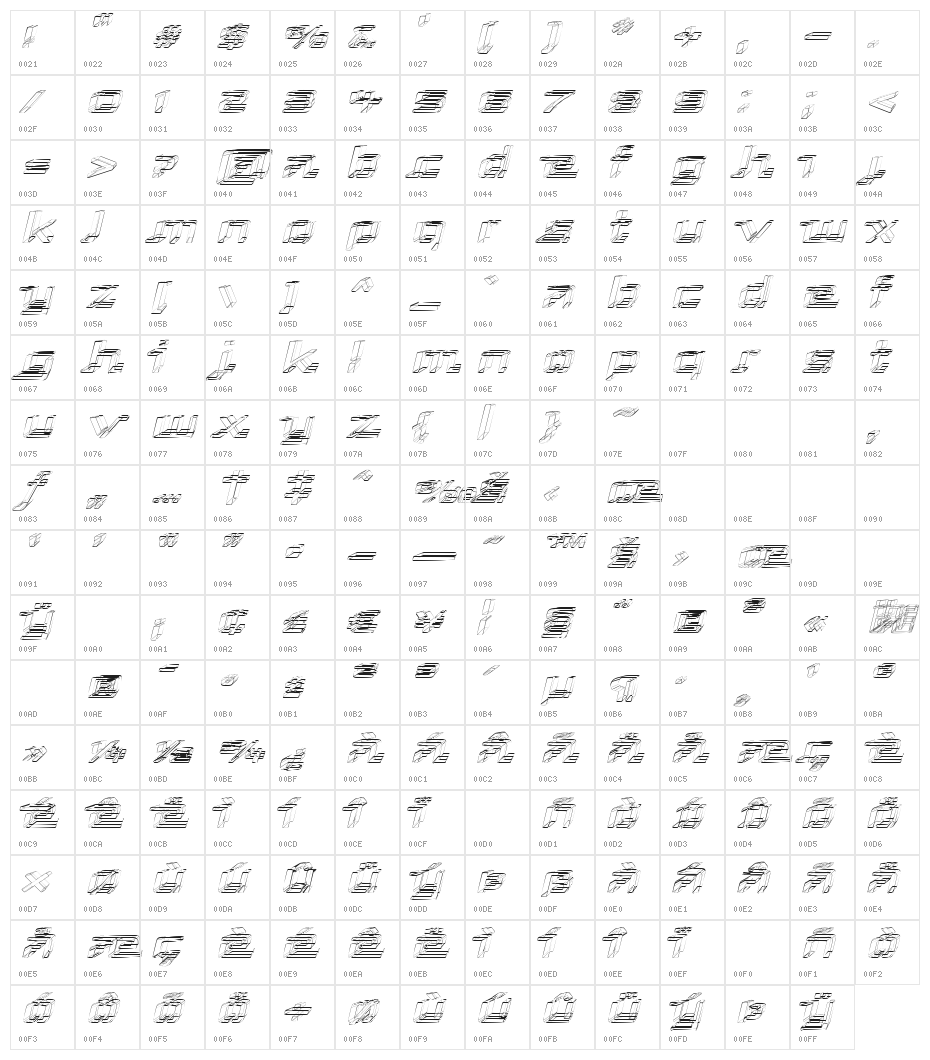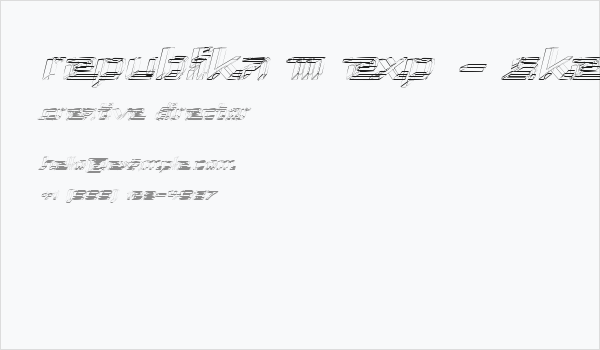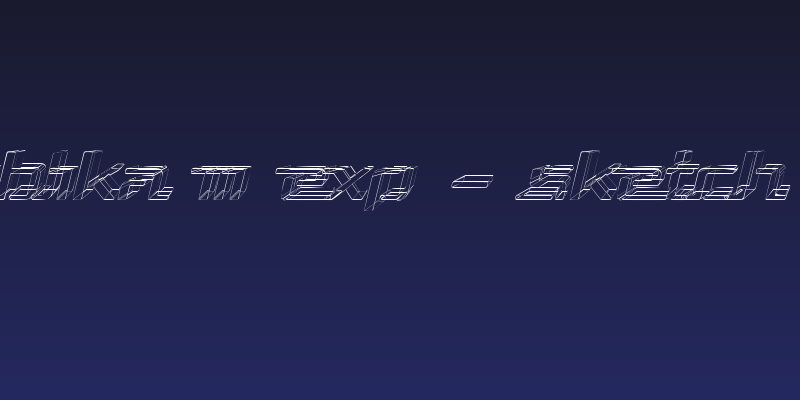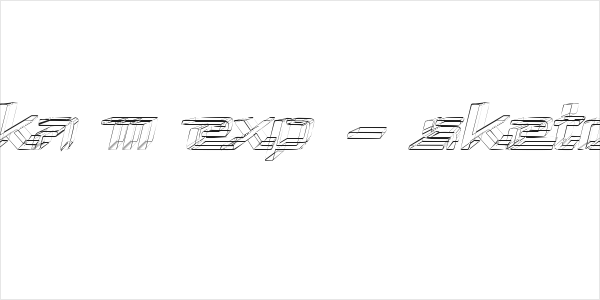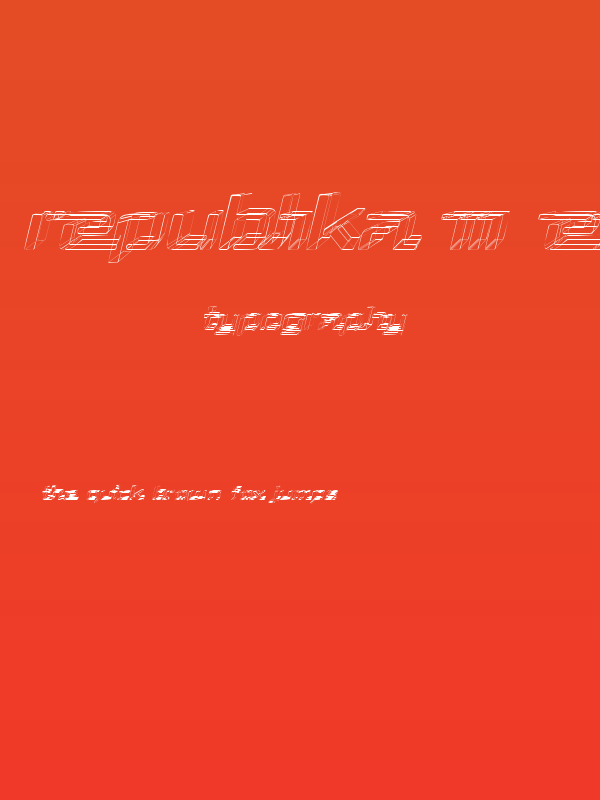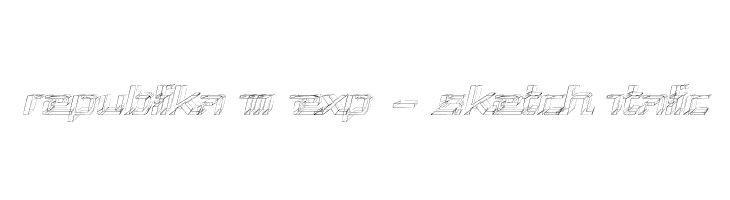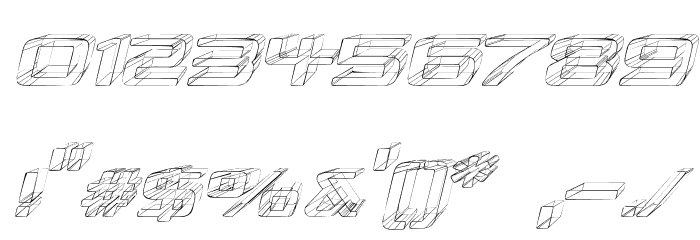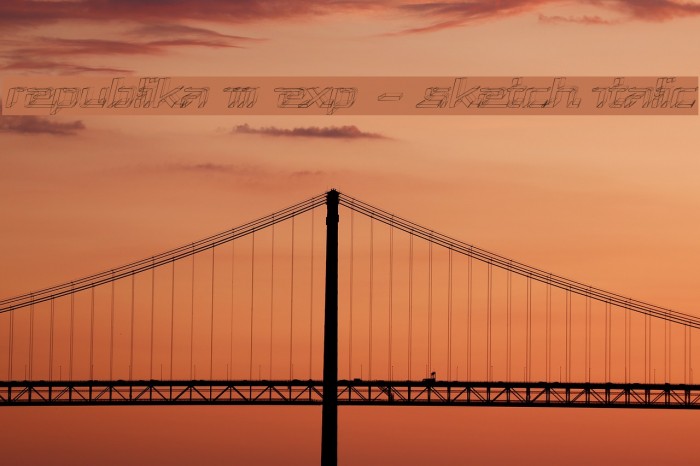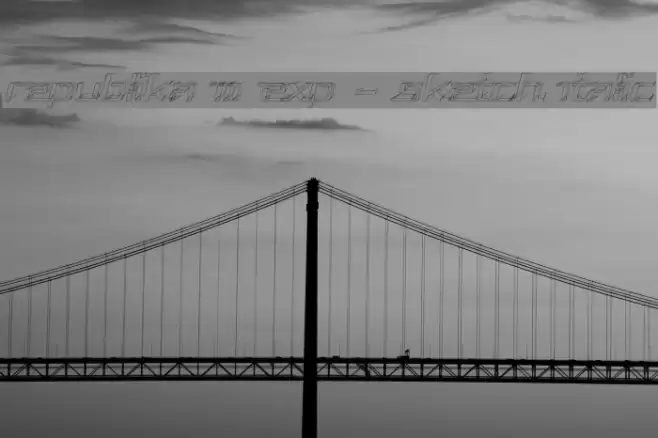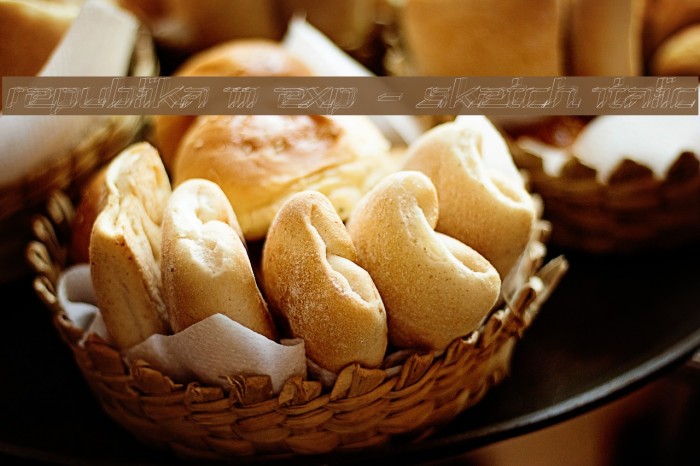
Republika III Exp - Sketch Italic Font
Republika III Exp - Sketch Italic Description
This font features a unique, sketch-like design with an italicized slant, giving it a dynamic and energetic appearance. The characters are outlined with a double-line effect, creating a sense of depth and movement. The angular and geometric shapes of the letters contribute to a futuristic and technical aesthetic. The font maintains consistent proportions across uppercase, lowercase, and numeral sets, ensuring readability despite its decorative style. Special characters are also included, matching the overall theme with their distinct outlines and angles.
| Proposed Projects | Ideal for projects that require a modern and edgy look, such as tech branding, video game titles, or sci-fi themed posters. |